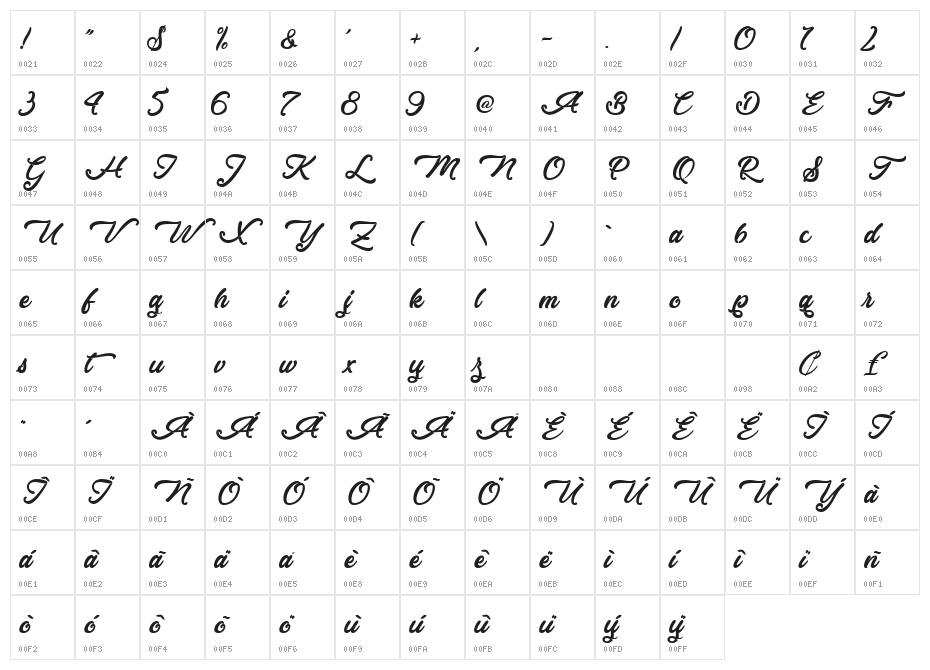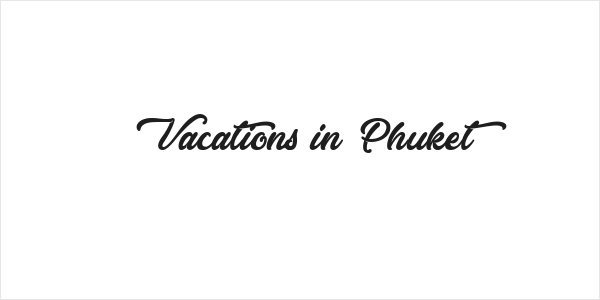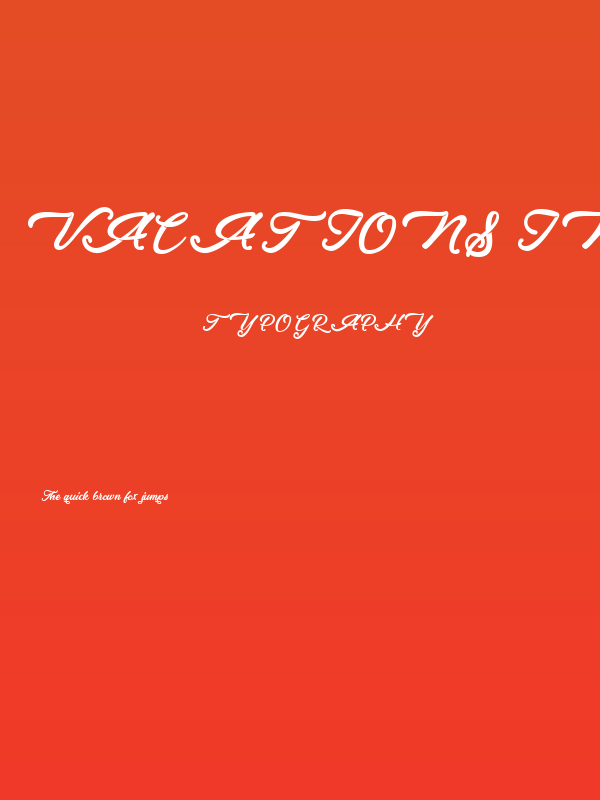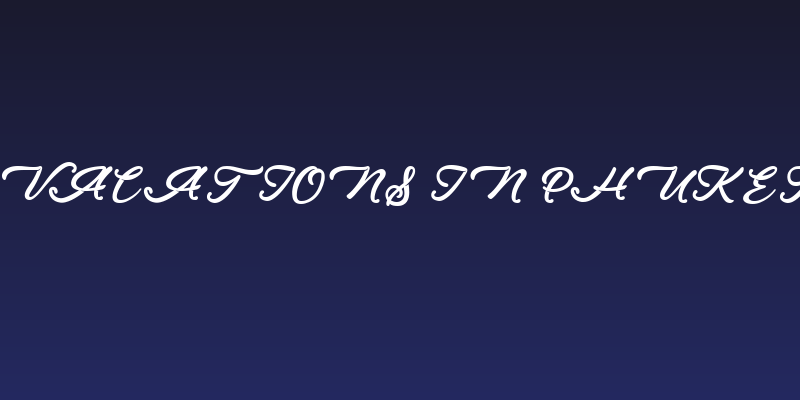
Vacations in Phuket Font
Vacations in Phuket Description
This font exudes a lively and elegant script style, characterized by its flowing, cursive letterforms. The uppercase letters are ornate, with intricate loops and swirls that add a touch of sophistication. The lowercase letters maintain a consistent flow, enhancing readability while retaining a decorative flair. The numerals are distinct and stylish, complementing the overall aesthetic. Special characters are crafted with the same attention to detail, ensuring a cohesive look across all glyphs. This font is ideal for projects that require a personal, handwritten touch, while still maintaining a sense of formality and elegance.
| Overall Style | Elegant, Decorative |
| Proposed Projects | Ideal for wedding invitations, greeting cards, branding, and elegant packaging. |